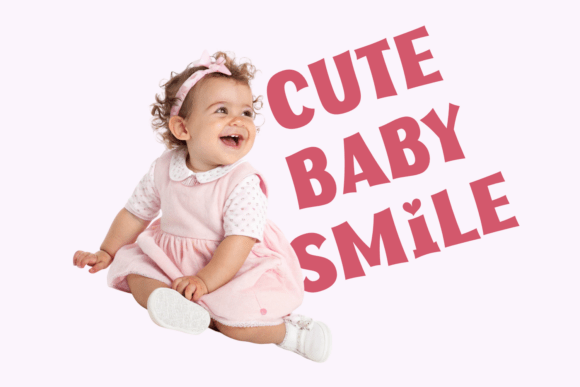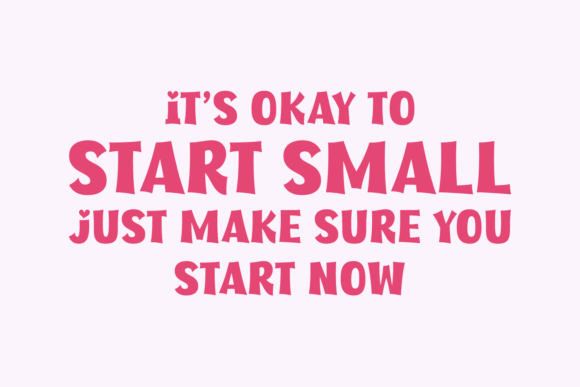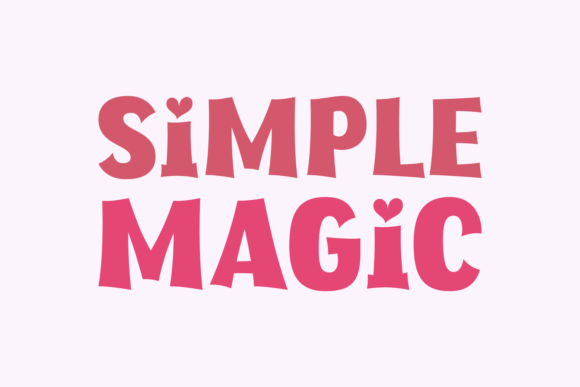
Introduction to High Girl Font
Have you ever been stuck on a creative project, desperately searching for the perfect font to bring your vision to life? The struggle is real, but what if I told you that help is just around the corner? Enter the High Girl Font, a game-changing display font that’s about to become your new go-to design resource.
| 👤 Author | Eightde |
With its high-quality design and impressive thickness, High Girl Font is the perfect addition to any creative project. Its comic-like aesthetic and cartoon charm make it an ideal choice for kids-related projects, while its power to capture attention instantly makes it great for crafting titles that grab attention.
Whether you’re designing a t-shirt, creating cover art, or working on a children’s book, High Girl Font is the perfect tool to help you create stunning visuals that stand out from the crowd. And the best part? It’s available for a free download, giving you the freedom to experiment and explore its full potential.
Key Features of High Girl Font
- Unique and stylish design: The High Girl Font is a high-quality design resource perfect for creative projects that require a touch of elegance and sophistication.
- Transparent background: This font features a transparent background, making it ideal for use on images or videos with a colored background.
- High-resolution design: The font is designed at a high resolution (300 DPI), making it suitable for use in print materials, such as business cards, brochures, and posters.
- Perfect for creative projects: The High Girl Font is a versatile design resource that can be used in a variety of creative projects, including branding, advertising, and editorial design.
Honest Review: High Girl Font
I recently came across the High Girl Font, and I must say it’s been a pleasant discovery. As a designer, I’m always on the lookout for high-quality design resources that can elevate my creative projects. The High Girl Font fits the bill, offering a unique and playful style that’s perfect for modern designs.
One of the standout features of the High Girl Font is its transparent background, which makes it incredibly versatile and easy to use. This means you can combine it with other fonts and backgrounds without worrying about any visual conflicts.
- Unique and playful style
However, I do have a few concerns:
- ⚠️ Limited character set, which may not be suitable for long-form content
- ⚠️ Not ideal for formal or traditional designs
Overall, I’d say the High Girl Font is a great addition to any designer’s toolkit. Its creative style and flexibility make it perfect for modern designs, and the free download is a bonus. Just be aware of its limitations, and you’ll be all set for a successful design project.
Tips for Getting the Most Out of High Girl Font
Use the font in combination with other high-quality design resources to create a cohesive and professional design. Experiment with different font sizes, colors, and arrangements to get the most out of the font.
The High Girl Font is perfect for creative projects that require a clean and elegant look, such as: invitations, business cards, logos, and typography-based designs.
Can I use the High Girl Font on a transparent background?
Yes, the High Girl Font has a transparent background, making it easy to use on custom backgrounds or in design projects where a transparent font is required. This feature adds an extra layer of flexibility to the font’s design capabilities.